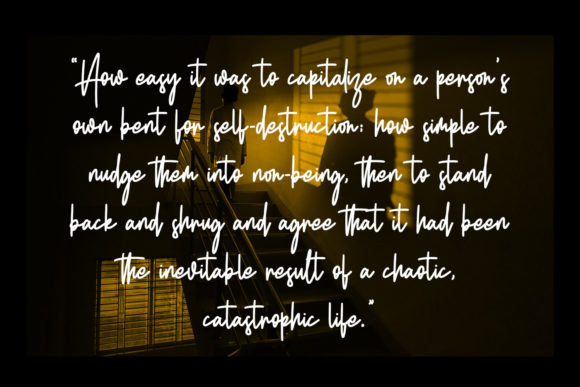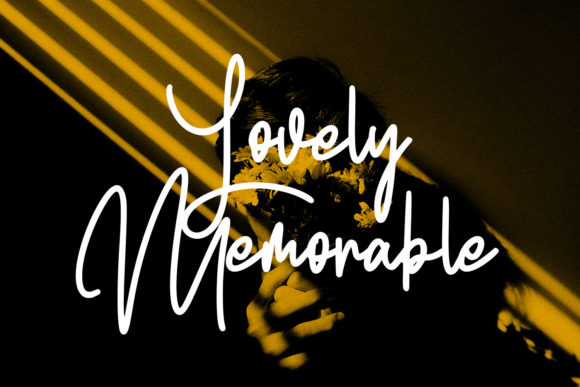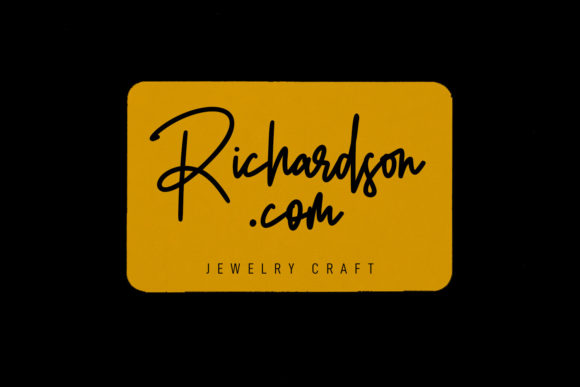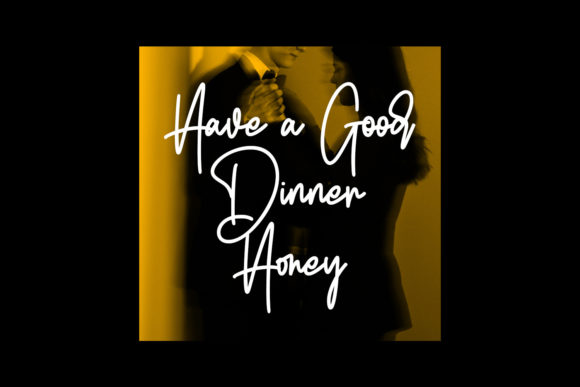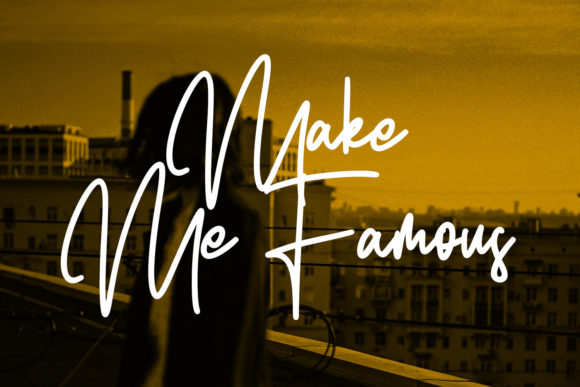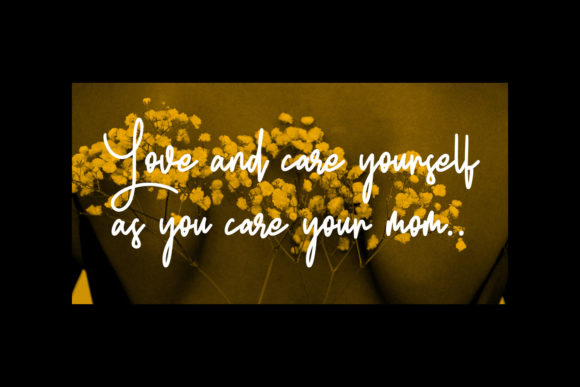
Introducing Edwardson Signature Font: Elevate Your Designs with a Relaxed Script Font
In the world of typography, a font can make or break a design. It’s the perfect blend of style, elegance, and personality that can elevate a creation from ordinary to extraordinary. If you’re a designer, crafty enthusiast, or simply someone who appreciates beautiful typography, then you’re in luck. Say hello to Edwardson Signature Font, an asymmetrical and relaxed script font that’s about to become your new favorite asset in your font library.
The Charm of Edwardson Signature Font
Edwardson Signature Font is a unique and versatile script font that boasts an effortlessly cool and casual vibe. Its asymmetrical design gives it a laid-back feel, making it perfect for a wide range of projects, from creative branding and advertising to packaging, signage, and even digital media. With its relaxed and approachable style, this font is sure to capture the attention of your audience and leave a lasting impression.
What Makes Edwardson Signature Font Stand Out?
- Asymmetrical Design: The font’s asymmetrical design gives it a distinctive and eye-catching look that sets it apart from more traditional script fonts.
- Relaxed and Casual: Edwardson Signature Font exudes a sense of calm and approachability, making it perfect for designs that require a friendly and approachable tone.
- Versatile: Whether you’re working on a logo, brochure, or social media graphic, this font adapts seamlessly to any design style or theme.
- Elegant and Refined: Despite its relaxed nature, Edwardson Signature Font still maintains an air of sophistication and elegance, making it suitable for high-end brands and designs.
How to Use Edwardson Signature Font in Your Designs
Edwardson Signature Font is incredibly versatile and can be used in a variety of design projects. Here are a few ideas to get you started:
- Branding and Logo Design: Use Edwardson Signature Font to create a unique and memorable logo that reflects your brand’s personality.
- Advertising and Marketing Materials: Add a touch of elegance and sophistication to your brochures, flyers, and social media graphics with this beautiful script font.
- Packaging and Label Design: Stand out on store shelves with eye-catching packaging that features Edwardson Signature Font.
- Digital Media: Use this font in your website headers, social media graphics, and email newsletters to add a personal touch and create a lasting impression.
Why Designers and Crafters Love Edwardson Signature Font
Edwardson Signature Font has quickly become a favorite among designers and crafters, and for good reason. Here are just a few reasons why:
- Easy to Read: Despite its elegant and refined nature, Edwardson Signature Font remains highly legible, making it perfect for body text and headlines.
- Highly Customizable: With a range of weights and styles to choose from, you can tailor Edwardson Signature Font to suit your design needs.
- Unique and Memorable: This font’s asymmetrical design and relaxed style make it instantly recognizable and memorable.
In conclusion, Edwardson Signature Font is a game-changer for designers and crafters looking to elevate their designs with a unique and elegant script font. Its asymmetrical design, relaxed style, and versatility make it the perfect asset to add to your font library. Whether you’re working on a branding project, advertising campaign, or simply looking to add a personal touch to your digital media, Edwardson Signature Font is sure to impress. So why wait? Download Edwardson Signature Font today and discover a world of creative possibilities!